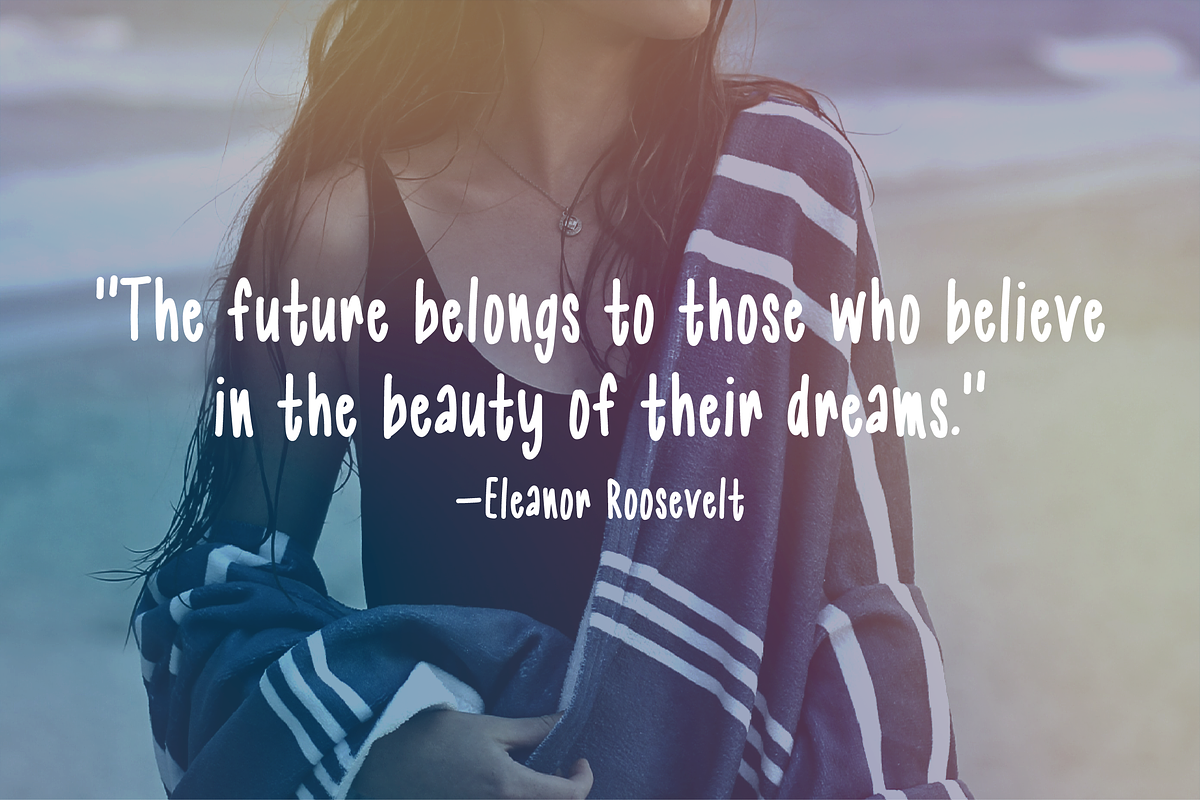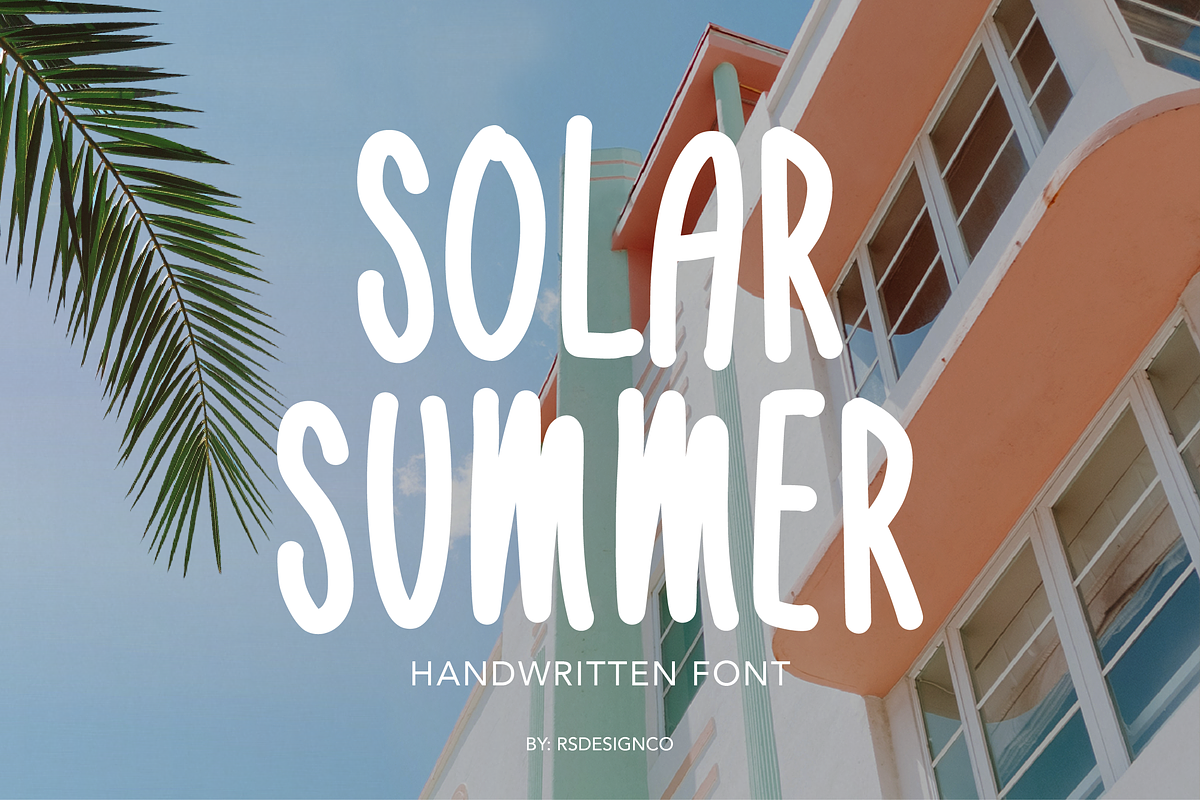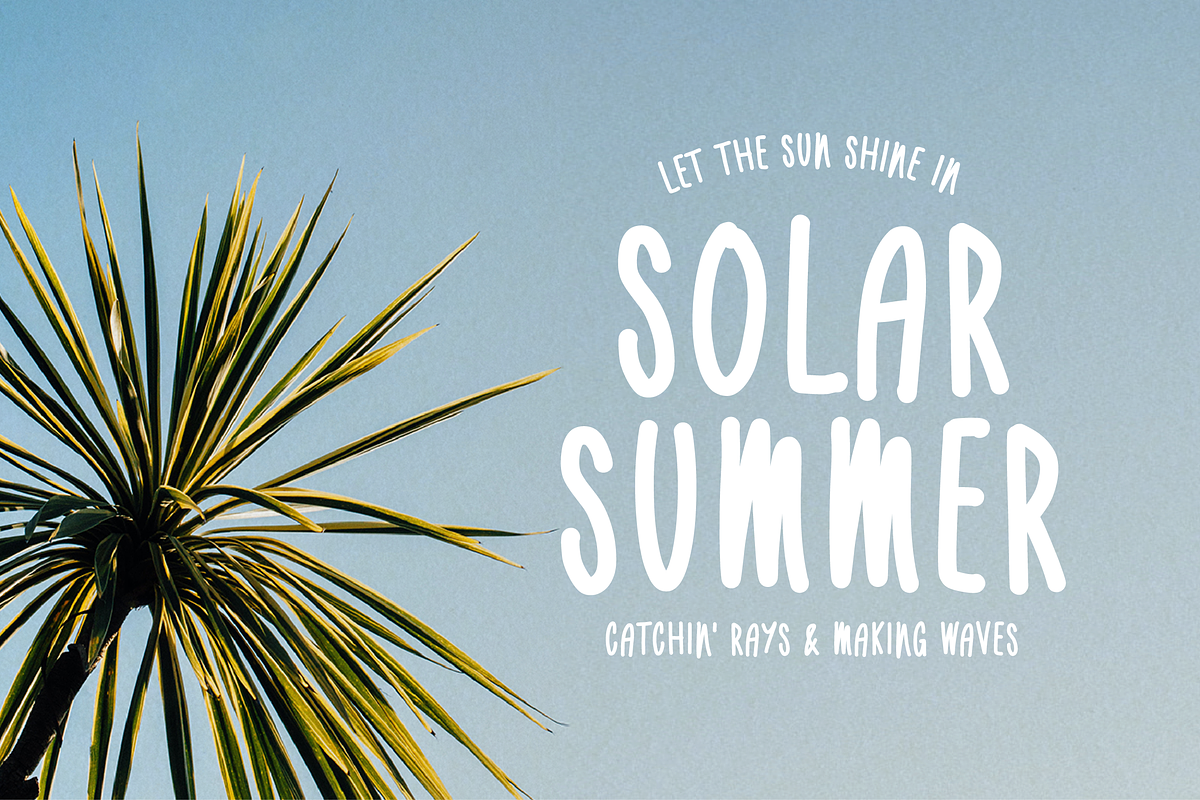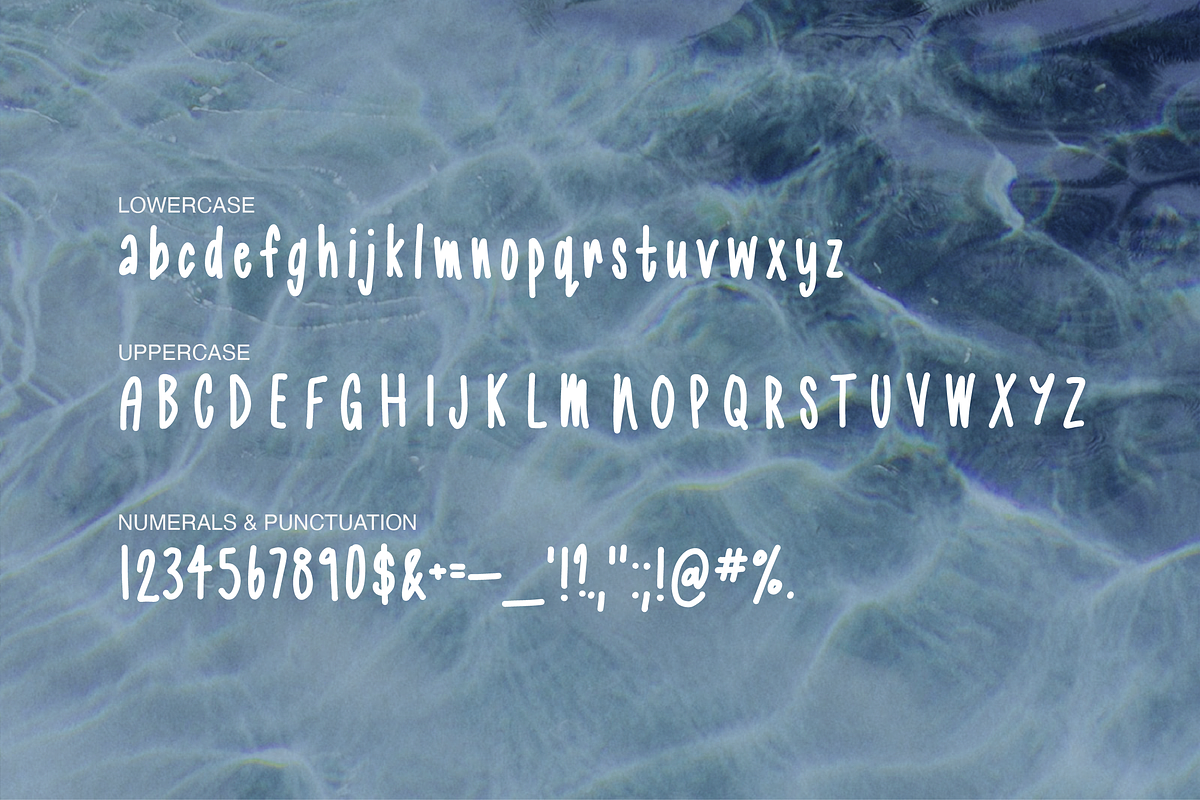
Solar Summer | Marker Sans
☀️ Bring the warmth of summer to your designs with Solar Summer! This playful handwritten font radiates a carefree, sun-kissed vibe that’s perfect for creative projects needing a touch of fun and personality. Solar Summer’s casual style brings a friendly and bright personality to any project, making it perfect for designs that need to evoke warmth, joy, and a touch of adventure.
- Summer-themed event flyers, beach party invitations, and travel posters
- Fun branding for cafes, ice cream shops, summer camps, or travel blogs
- Playful packaging for seasonal products, children’s items, or tropical treats
- Happy social media posts, quotes, and greeting cards that need a pop of personality
- Any project that could use a splash of sunshine and a relaxed, friendly feel
- Hand-drawn uppercase and lowercase (A-Z, a-z) characters with a smooth marker style
- Includes numbers and essential punctuation, so your text is fully equipped
Add a burst of sunshine to your designs with Solar Summer!